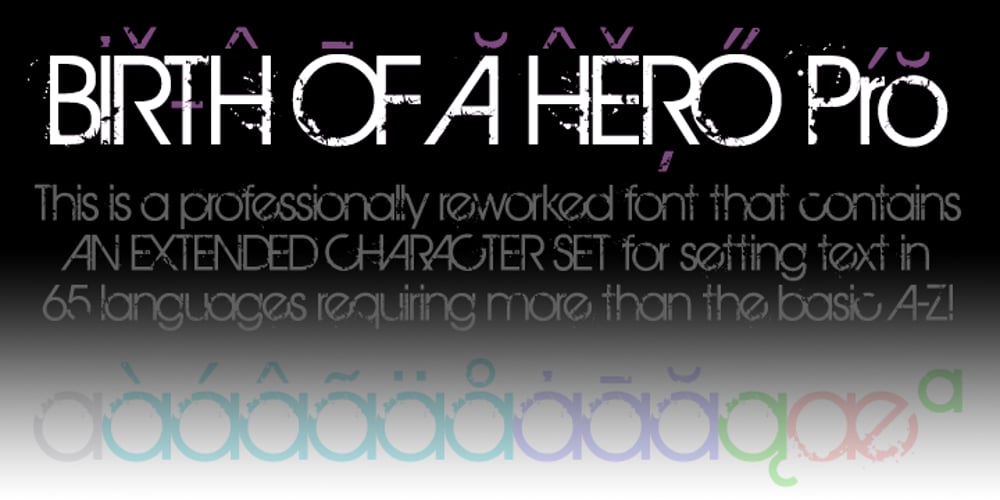
Birth Of A Hero Pro
Birth Of A Hero Pro font
Birth Of A Hero Pro Font Family was designed by Roger S. Nelsson, Guillaume Séguin and published by CheapProFonts. Birth Of A Hero Pro contains 1 styles and family package options. A grunged-up variant of a classic font – with ultra-tight spacing (uppercase letters are mostly overlapping). Perfect for that worn but stylish look, now with hugely extended language support. ALL fonts from CheapProFonts have very extensive language support: They contain some unusual diacritic letters (some of which are contained in the Latin Extended-B Unicode block) supporting: Cornish, Filipino (Tagalog), Guarani, Luxembourgian, Malagasy, Romanian, Ulithian and Welsh. They also contain all glyphs in the Latin Extended-A Unicode block (which among others cover the Central European and Baltic areas) supporting: Afrikaans, Belarusian (Lacinka), Bosnian, Catalan, Chichewa, Croatian, Czech, Dutch, Esperanto, Greenlandic, Hungarian, Kashubian, Kurdish (Kurmanji), Latvian, Lithuanian, Maltese, Maori, Polish, Saami (Inari), Saami (North), Serbian (latin), Slovak(ian), Slovene, Sorbian (Lower), Sorbian (Upper), Turkish and Turkmen. And they of course contain all the usual “western” glyphs supporting: Albanian, Basque, Breton, Chamorro, Danish, Estonian, Faroese, Finnish, French, Frisian, Galican, German, Icelandic, Indonesian, Irish (Gaelic), Italian, Northern Sotho, Norwegian, Occitan, Portuguese, Rhaeto-Romance, Sami (Lule), Sami (South), Scots (Gaelic), Spanish, Swedish, Tswana, Walloon and Yapese.